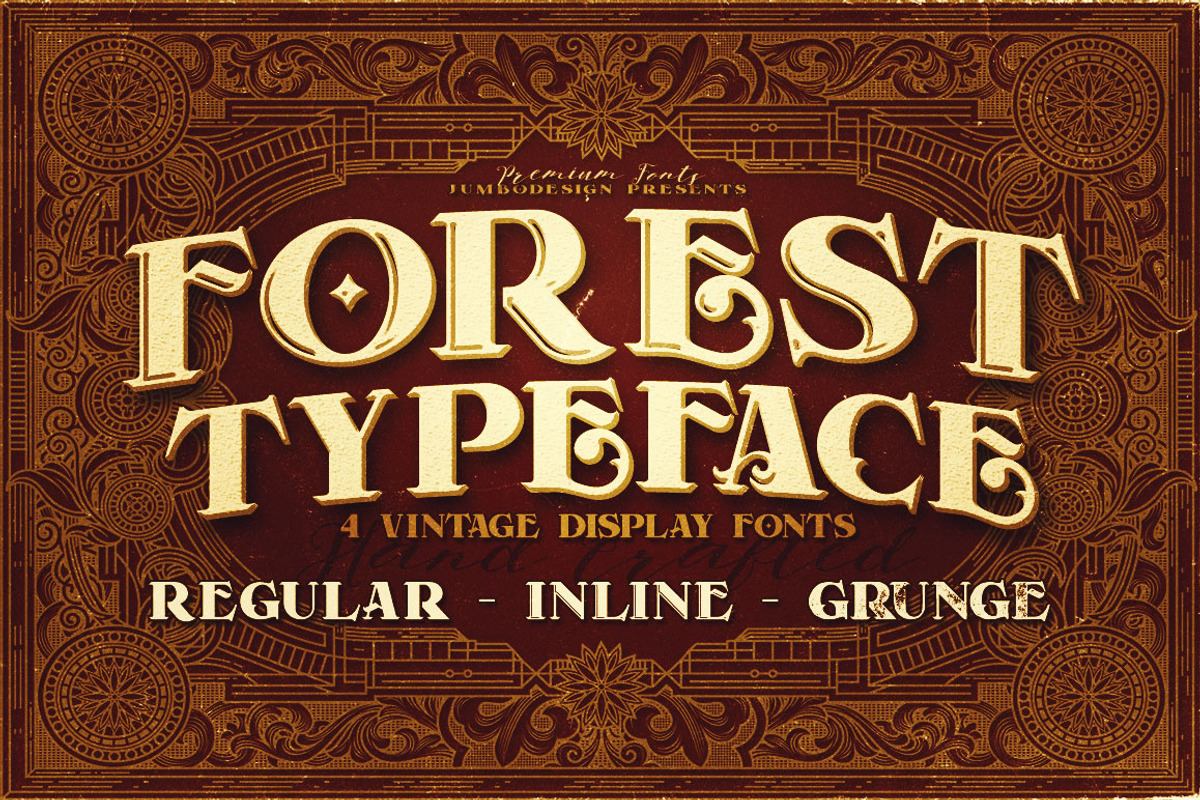
Forest - Display Font Free Download is a bold and expressive typeface designed with nature-inspired elements, making it perfect for designs related to the outdoors, adventure, and the environment. With its sturdy letterforms and organic shapes, this font evokes the feel of trees, roots, and earthy textures, making it ideal for logo design, posters, branding, and any project related to nature, wilderness, or sustainability.
Forest - Display Font Free Download stands out with its unique style and visual impact, making it a perfect choice for anything from outdoor brands to adventure travel campaigns. Its strong structure ensures readability while maintaining a connection to the natural world.